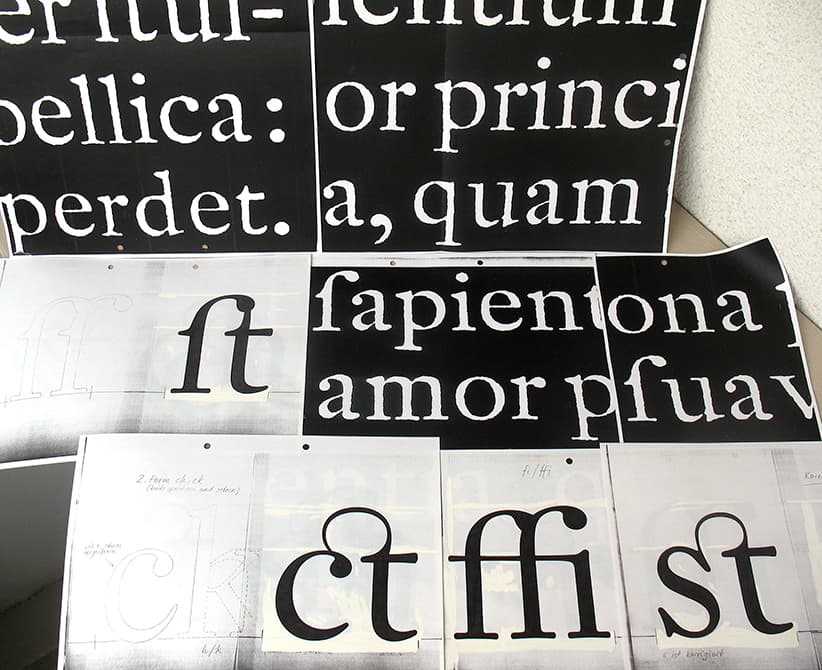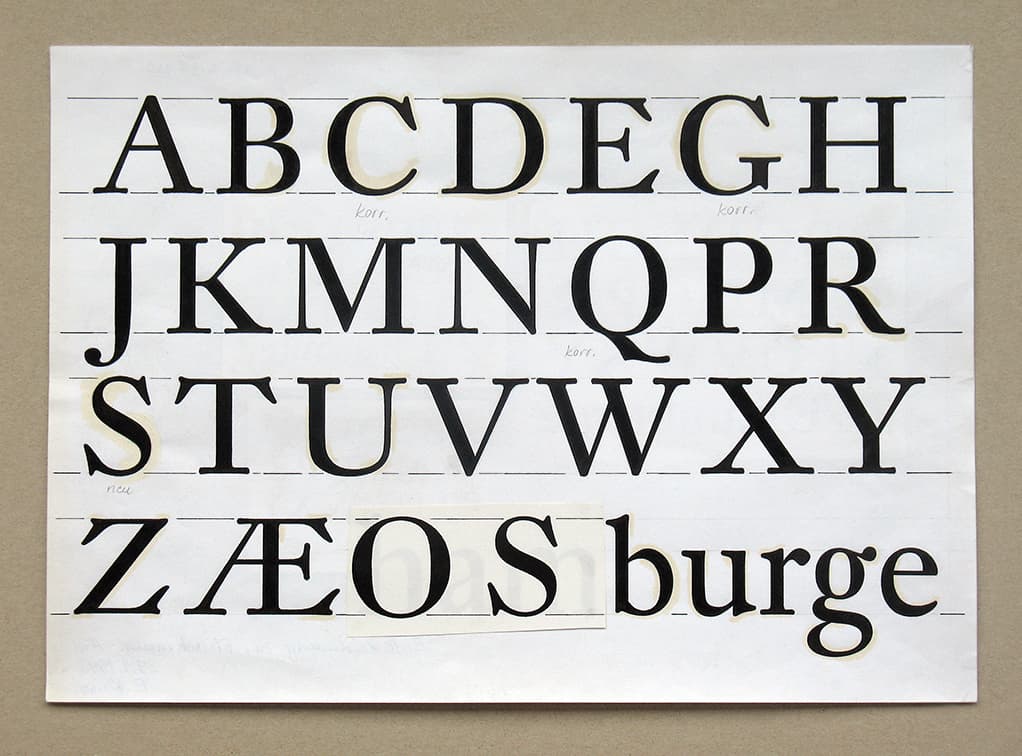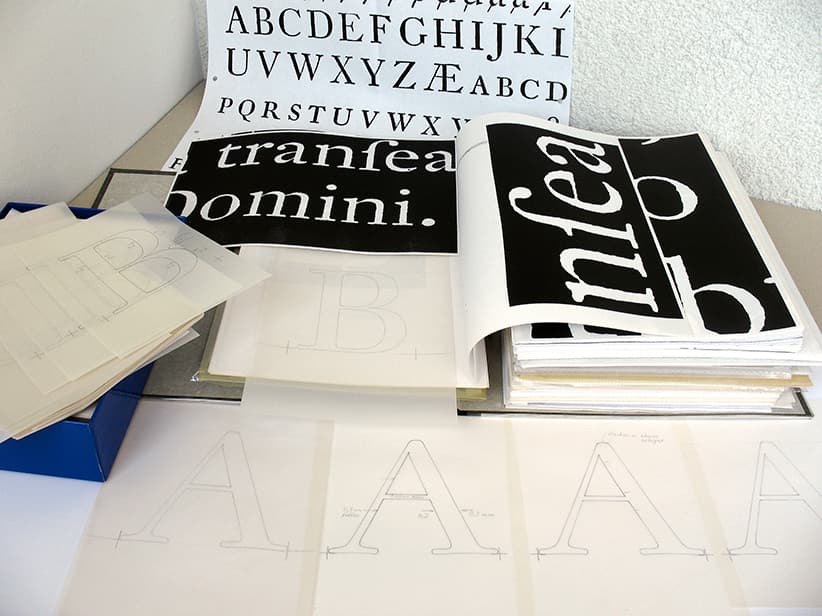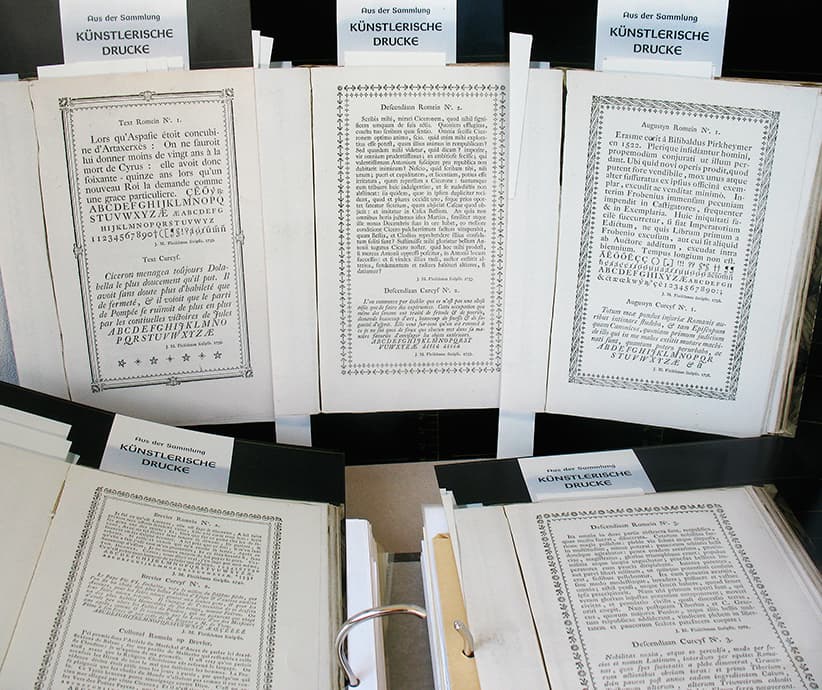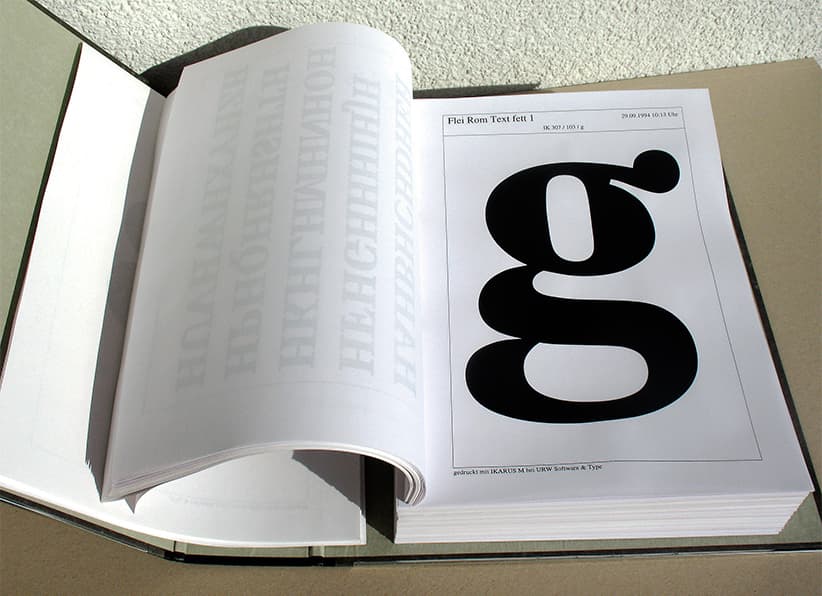
Johann Michael Fleischmann was born in 1707 in the small town of Wördt, near Nuremberg. In 1728 he arrived in the Netherlands; in that year he worked for over a month as type caster for Izaak van der Putte in Amsterdam. He then traveled to The Hague and found employment in the type foundry of the booksellers Rutger Christoffel Alberts and Hermanus Uytwerf. When Alberts withdrew from the business, Uytwerf moved the trade to Amsterdam and Fleischmann traveled with him. Fleischmann worked for Uytwerf until 1732, before he started working independently as a punchcutter. In 1735 he opened a type foundry, which, however, was unsuccessful due to a lack of business acumen. The printer Rudolph Wetstein took over the Fleischmann type foundry. Fleischmann remained involved in the business and made a large number of punches and matrices exclusively for Wetstein. The latter died in 1742 and his son Hendrik Floris sold the printing business but continued the foundry. In 1743 Wetstein jr. sold the not flourishing foundry to Izaak and Johannes Enschedé. Fleischmann then went on to produce type exclusively for the Enschedés. However, from 1748 Fleischmann also worked with the permission of Johannes Enschedé for other type foundries, such as those of Van der Putte, Jacob Cambier, Martin Weyer, and the Ploos van Amstel brothers. Fleischmann died in Amsterdam in 1768; he was buried in the Old Lutheran Church. In 1992 the Dutch Type Library commissioned the German type designer Erhard Kaiser to make dtl Fleischmann. The digital family has become very extensive: in addition to display and text versions, there are, for example, beautiful series of ligatures, which, of course, do not lack the ‘long s’. Also noteworthy are the special tabular figures for small capitals. dtl Fleischmann is used in literary publications, but was, for example, also the corporate typeface of F. van Lanschot Bankiers for a long time. A German type specimen of dtl Fleischmann (pdf edition) appeared in 2000. | |||||||||||||||||||